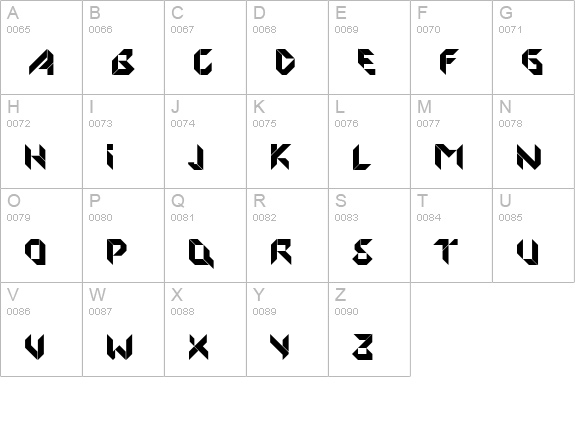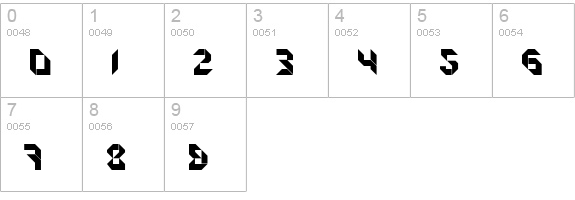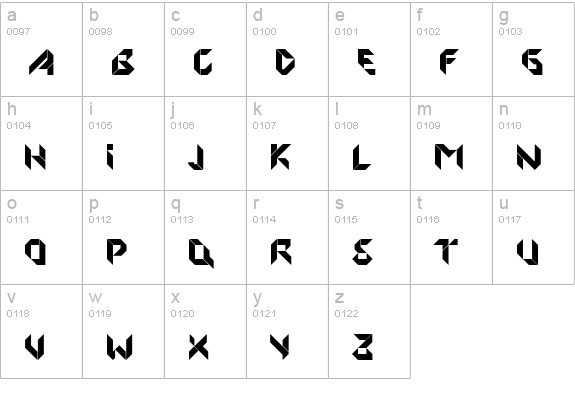
FORMFOUND Origami Font Details
FORMFOUND Origami font is a visually striking and intricate typeface that draws inspiration from the art of origami. Each character is meticulously designed to resemble a folded paper structure, creating a unique and eye-catching appearance. The sharp angles and clean lines of this font give it a modern and geometric aesthetic, making it perfect for projects that require a bold and contemporary look. What sets FORMFOUND Origami font apart is not only its distinctive design but also the fact that it is available for free. That's right, you can download this innovative font at FontsMarket.com without any cost. Whether you're working on a branding project, a poster design, or any other creative endeavor, FORMFOUND Origami font will add a touch of sophistication and originality to your work. Embrace the art of origami with this free font and elevate your designs to new heights.